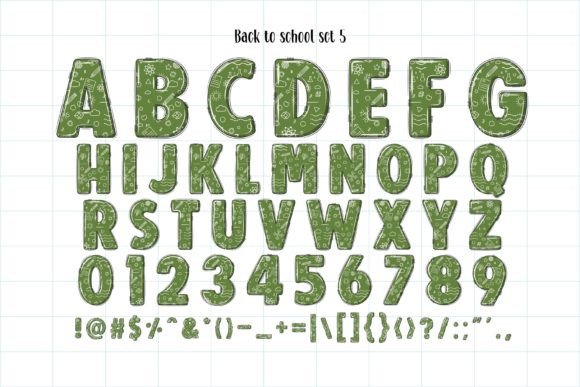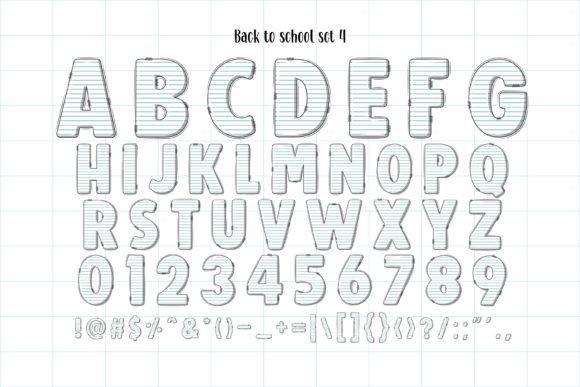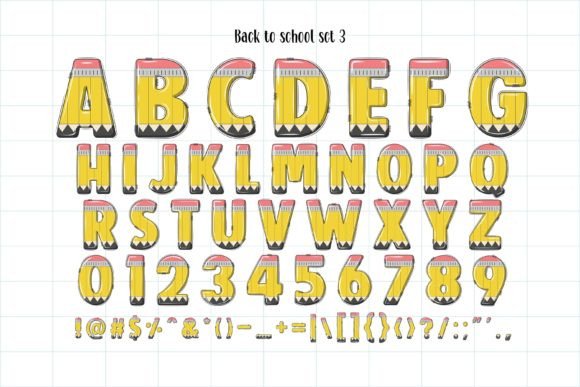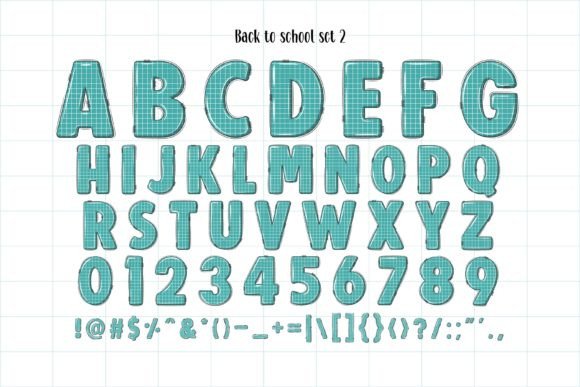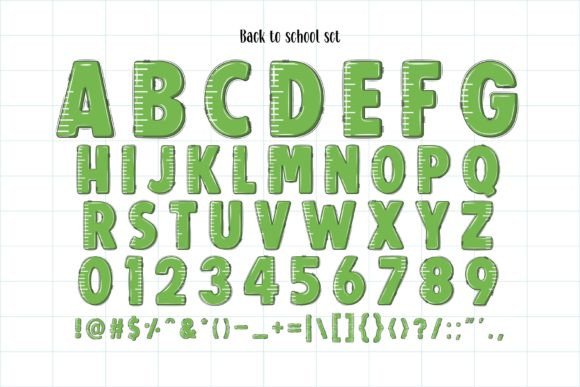
Get Ready to Create Something Extraordinary
It’s that time of the year again – the summer heat begins to fade, and the excitement of a new school year starts to build. You know the feeling, don’t you? The rush of creativity, the urge to create something special, and the thrill of bringing new ideas to life. As a designer, you’re probably already thinking about how to make this year’s projects stand out.
That’s where the ‘Back to School Set Font’ comes in – a vibrant, playful typeface designed to capture the essence of the new school year. With its bold colors and unique design, this font is perfect for children’s entertainment and educational projects. Whether you’re creating invitations, posters, or social media graphics, the ‘Back to School Set Font’ is sure to add a touch of fun and personality to your designs.
Key Features of “Back to School Set Font”
- Font Family: A custom-designed font family with 4 styles (Regular, Italic, Bold, and Bold Italic)
- Font Size: Available in 4 font sizes (12pt, 14pt, 16pt, 18pt) for flexibility in design and layout
- Resolution: Optimized for high-resolution displays (Retina and 4K) with a minimum resolution of 300 DPI
- Unique Characteristics: Designed with a playful and educational theme, featuring icons and graphics related to school and learning
- Language Support: Supports Latin, Cyrillic, and Greek alphabets, making it suitable for multilingual designs and publications
Back to School Set Font Review
I recently had the chance to work with the “Back to School Set Font” and I’m sharing my honest thoughts on it.
- Playful and fun design: The font’s playful nature makes it perfect for back-to-school and educational projects.
- High-quality vectors: The font’s vectors are crisp and clear, making it suitable for various mediums, from print to digital.
- Great character set: The font includes a wide range of characters, including accents and punctuation, making it versatile for different languages.
- Limited use cases: While the font is perfect for back-to-school and educational projects, its playful nature may not be suitable for more formal or professional projects.
- No bold or italic styles: The font lacks bold and italic styles, which can limit its use in certain contexts.
Overall, I think the “Back to School Set Font” is a great addition to any designer’s toolbox. While it has some limitations, its playful design and high-quality vectors make it a great choice for the right projects. With a little creativity, I’m sure designers can find ways to work around its limitations and get the most out of this fun font.
Back to School Set Font: A Practical Application Guide
Tips for Getting the Most Out of the Back to School Set Font
Here are some tips for getting the most out of the Back to School Set Font:
- Use the font consistently throughout your design to create a cohesive look.
- Experiment with different font sizes and colors to add visual interest.
- Combine the font with other design elements, such as images and graphics, to create a engaging design.
The Back to School Set Font is perfect for:
- School marketing materials, such as flyers and posters.
- Classroom decorations and signs.
- Back to school